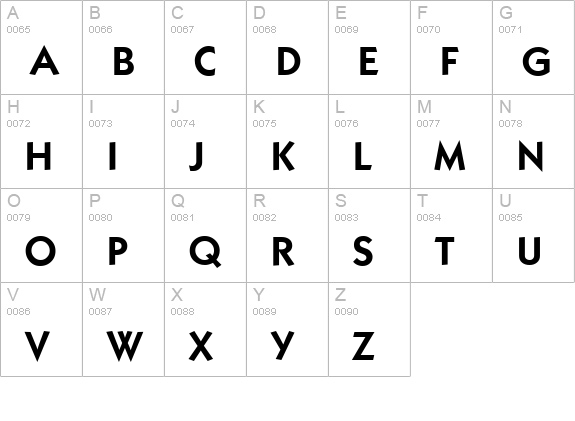
K792-Geometrical-Demi-Regular Font Details
K792-Geometrical-Demi-Regular is a sub-bold, structured variant in the K792 typeface family \xE2\x80\x94 well suited to sub-headlines and emphasised passages.
K792-Geometrical-Demi-Regular font is a modern and sleek typeface that combines geometric shapes with a touch of elegance. Its clean lines and balanced proportions make it suitable for a wide range of design projects, from branding to editorial layouts. The font exudes a sense of sophistication and professionalism, making it a versatile choice for both digital and print applications. What sets K792-Geometrical-Demi-Regular font apart is its unique blend of geometric elements and demi-regular weight, creating a harmonious and eye-catching appearance. Whether used for headlines, body text, or display purposes, this font is sure to make a statement and captivate the audience. Best of all, K792-Geometrical-Demi-Regular font is available for free download at FontsMarket.com, allowing designers and creatives to access this premium typeface without any cost. Don't miss out on the opportunity to enhance your projects with this stunning font and elevate your design to the next level. Download K792-Geometrical-Demi-Regular font today and unleash your creativity!